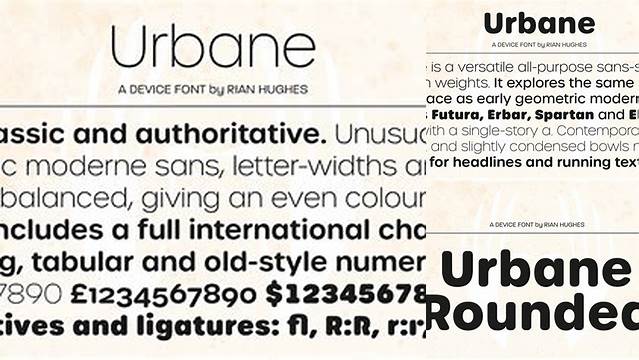
Urbane Rounded: A Modern Font Guide For Designers
Urbane Rounded is more than just a font; it's a design statement. If you're like me, always on the lookout for that perfect typeface to elevate your projects, then you've probably stumbled upon the beauty of Urbane Rounded. This font family, available through Adobe Fonts, has a unique charm that blends modernity with approachability. In this article, we're going to delve deep into what makes Urbane Rounded so special, how to use it effectively, and why it might just be the missing piece in your design puzzle.
What is Urbane Rounded?
Let's kick things off by understanding the core of what Urbane Rounded is all about. Urbane Rounded is a contemporary sans-serif typeface characterized by its clean lines and, of course, its rounded terminals. These rounded edges give the font a softer, more friendly feel compared to traditional sharp-edged sans-serifs. It's a versatile font family, meaning it often includes a variety of weights and styles, from thin and light to bold and heavy, offering designers a wide range of options for different applications. The beauty of Urbane Rounded lies in its ability to convey both professionalism and warmth. Think of it as the design equivalent of a firm handshake with a friendly smile. This makes it ideal for projects where you want to appear modern and trustworthy, but also approachable and human.
When we talk about its history, Urbane Rounded is a relatively recent addition to the vast world of typography. While the exact origins might vary depending on the specific foundry or designer, the philosophy behind rounded sans-serifs in general is rooted in a desire for a more humanistic and less rigid aesthetic. In a world increasingly dominated by digital interfaces, fonts like Urbane Rounded help to bridge the gap between technology and human connection. Now, let's get into why this font is such a game-changer in the design world. Its versatility is a key factor. Whether you're designing a sleek website, a friendly mobile app, or even print materials like brochures and posters, Urbane Rounded can adapt to the task. Its clean lines ensure readability across various sizes and resolutions, which is crucial in today's multi-device world. The rounded terminals, as we've mentioned, add a touch of softness that can make your designs feel more inviting. In branding, this can be incredibly powerful. Imagine using Urbane Rounded for a tech startup that wants to convey innovation but also build trust with its users. The font's gentle curves can help create a sense of approachability, making the brand feel more relatable. But it's not just for tech; Urbane Rounded works well across a wide range of industries, from healthcare to education to creative services. Its neutrality allows it to blend seamlessly with different visual styles and brand personalities. When you compare it to other fonts, Urbane Rounded carves out a unique space. Traditional sans-serifs like Helvetica or Arial, while classic and widely used, can sometimes feel a bit cold or corporate. On the other hand, more decorative or script fonts might be too informal for certain applications. Urbane Rounded strikes a perfect balance, offering a modern and clean look with a touch of warmth. Think of it as the Goldilocks of fonts – not too harsh, not too soft, just right.
Key Characteristics of Urbane Rounded
Alright, let's break down the specific traits that make Urbane Rounded stand out from the crowd. We've already touched on the rounded terminals, but there's so much more to this font's personality. Think of these characteristics as the different ingredients in a recipe – each one contributes to the final flavor. One of the primary characteristics is its legibility. Urbane Rounded is designed with clarity in mind, ensuring that the letterforms are easily distinguishable from one another. This is super important, especially when you're dealing with body text or smaller font sizes. Nobody wants to squint and struggle to read your message, right? The clean, uncluttered design of Urbane Rounded helps prevent eye strain and makes for a more pleasant reading experience. This legibility is achieved through careful attention to details like the x-height (the height of the lowercase letters), the spacing between letters, and the overall proportions of the characters. A well-designed typeface like Urbane Rounded will have consistent letterforms that work together harmoniously. Another key characteristic is its modern aesthetic. Urbane Rounded feels fresh and contemporary, making it a great choice for projects that need to look current and up-to-date. It avoids the dated feel that some older fonts can have, while still maintaining a sense of timelessness. This modern vibe is achieved through its geometric construction and the simplicity of its letterforms. There aren't any unnecessary frills or decorations; instead, the focus is on clean lines and a streamlined appearance. The rounded terminals, of course, play a big role in this modern feel. They soften the edges and give the font a more approachable look, which is a departure from the harsher, more angular sans-serifs of the past. But it's not just about being modern; Urbane Rounded also has a sense of approachability. The rounded edges create a friendly and inviting feeling, making the font feel less formal and more human. This is a crucial factor in branding and communication, where you want to connect with your audience on an emotional level. A font that feels approachable can help build trust and create a positive impression. Think about how different fonts make you feel. A sharp, angular font might convey power and authority, while a script font might feel elegant and sophisticated. Urbane Rounded, with its gentle curves, strikes a balance between professionalism and warmth. It's like a friendly handshake – confident but not intimidating. Beyond these core characteristics, Urbane Rounded also boasts versatility. As we mentioned earlier, it comes in a variety of weights and styles, giving you plenty of options to play with. You can use a light weight for headings to create a delicate and airy feel, or a bold weight for emphasis and impact. The different styles within the family – such as italic or condensed versions – further expand your creative possibilities. This versatility makes Urbane Rounded a workhorse font that you can use across a wide range of projects. Whether you're designing a website, a logo, or a print brochure, you'll find a style of Urbane Rounded that fits the bill. And finally, let's not forget its neutrality. Urbane Rounded is a relatively neutral font, meaning it doesn't have a strong personality that will clash with other design elements. This makes it easy to pair with other fonts and use in a variety of contexts. While some fonts demand attention and can overwhelm a design, Urbane Rounded tends to blend in seamlessly. This neutrality is a strength, as it allows the font to support your message without overpowering it. It's like a reliable supporting actor in a movie – it might not be the star, but it plays a crucial role in the overall performance.
How to Use Urbane Rounded Effectively
Okay, so we've established that Urbane Rounded is a fantastic font with a lot to offer. But how do you actually use it effectively in your designs? Let's dive into some practical tips and tricks to make the most of this versatile typeface. Think of these as your guidelines for creating a harmonious and visually appealing design. First off, consider the context of your project. What are you trying to communicate? What kind of message do you want to send? Urbane Rounded's blend of modernity and approachability makes it suitable for a wide range of applications, but it's still important to think about whether it's the right fit for your specific needs. For example, if you're designing a website for a tech startup, Urbane Rounded can be a great choice. Its clean lines and rounded edges convey innovation and friendliness, which can help build trust with your users. On the other hand, if you're designing a logo for a high-end luxury brand, you might opt for a more elegant and sophisticated typeface. The key is to align your font choice with the overall brand personality and message. Next, think about hierarchy. How can you use Urbane Rounded to guide your audience through your design? Hierarchy is all about creating visual cues that tell people where to look first, second, and so on. You can achieve this by using different weights and sizes of Urbane Rounded to create contrast and emphasis. For example, you might use a bold weight for your headings to make them stand out, and a lighter weight for your body text to ensure readability. Size is another important factor. Larger text will naturally attract more attention, so use it strategically to highlight key information. Spacing also plays a role – increasing the line height or letter spacing can make text feel more open and inviting. Remember, good typography is all about making your message clear and easy to understand. Another crucial aspect is pairing. While Urbane Rounded is a strong font on its own, it often works best when paired with another typeface. The right font pairing can create visual interest and enhance the overall aesthetic of your design. When choosing a pairing font, look for something that complements Urbane Rounded without competing with it. A good rule of thumb is to pair a sans-serif font (like Urbane Rounded) with a serif font, or vice versa. This creates contrast and prevents your design from feeling monotonous. For example, you might pair Urbane Rounded with a classic serif font like Garamond or Times New Roman for a sophisticated and balanced look. Or, you could pair it with another sans-serif font with a different personality, such as a more geometric or condensed typeface. Experiment with different combinations to see what works best for your project. Don't be afraid to try unexpected pairings – sometimes the most surprising combinations are the most effective. Consistency is key in design, so make sure you're using Urbane Rounded consistently throughout your project. This means sticking to a limited number of weights and styles, and using them in a predictable way. For example, you might choose to use a bold weight for all of your headings and a regular weight for your body text. This creates a sense of visual unity and makes your design feel more polished and professional. Inconsistency can be jarring and confusing for your audience, so it's important to establish a clear visual system and stick to it. Finally, pay attention to the details. Typography is all about the subtle nuances that can make a big difference in the overall impact of your design. Things like kerning (the spacing between individual letters), leading (the spacing between lines of text), and tracking (the overall spacing between letters) can all affect readability and visual appeal. Take the time to fine-tune these details to ensure that your text looks its best. Even small adjustments can have a significant impact on the final result. Remember, typography is an art and a science. It requires both technical skill and creative vision. By mastering the fundamentals and paying attention to the details, you can use Urbane Rounded to create beautiful and effective designs.
Examples of Urbane Rounded in Action
To truly appreciate the versatility of Urbane Rounded, let's take a look at some real-world examples of how it's being used in different design contexts. Seeing the font in action can spark your own creativity and help you visualize how it might work in your projects. Think of these examples as a source of inspiration and a guide to the possibilities. One common application is in website design. Urbane Rounded's clean lines and excellent readability make it a popular choice for both headings and body text on websites. Its modern aesthetic helps create a contemporary look and feel, while its rounded edges add a touch of approachability. Many tech companies and startups use Urbane Rounded to convey a sense of innovation and trustworthiness. For example, you might see it used on a company's homepage to introduce their brand and values, or in blog posts and articles to ensure a pleasant reading experience. The font's versatility allows it to adapt to different website layouts and design styles, making it a reliable choice for web designers. In branding, Urbane Rounded can be a powerful tool for creating a consistent and memorable visual identity. Its neutrality allows it to blend seamlessly with different brand colors and imagery, while its rounded terminals help create a friendly and approachable brand personality. You might see it used in logos, marketing materials, and social media graphics. For instance, a healthcare company might use Urbane Rounded to convey a sense of care and compassion, while a creative agency might use it to project a modern and innovative image. The key is to use the font consistently across all brand touchpoints to create a cohesive and recognizable brand identity. Print materials are another area where Urbane Rounded shines. Its legibility and clarity make it an excellent choice for brochures, posters, flyers, and other printed documents. Whether you're designing a corporate brochure or a promotional poster, Urbane Rounded can help you communicate your message effectively. Its versatility allows it to work well in both large and small sizes, making it suitable for headings, body text, and captions. The font's modern aesthetic ensures that your printed materials look current and professional. Mobile app design is yet another context where Urbane Rounded excels. With the increasing popularity of mobile devices, it's crucial to choose fonts that are easy to read on small screens. Urbane Rounded's clean letterforms and generous spacing make it an ideal choice for mobile apps. You might see it used in navigation menus, buttons, and other UI elements. Its rounded edges can help create a user-friendly and intuitive interface. Many app designers use Urbane Rounded to ensure a seamless and enjoyable user experience. Beyond these specific examples, Urbane Rounded can also be used in a variety of other design applications, such as presentations, infographics, and even video graphics. Its versatility and adaptability make it a valuable asset for any designer. The key is to experiment and see how it works best in your particular context. Don't be afraid to try different weights, styles, and pairings to create a unique and effective design. By studying how Urbane Rounded is being used in the real world, you can gain inspiration and develop your own creative approach. Remember, good design is all about making informed choices and using your tools effectively. With Urbane Rounded in your font arsenal, you'll be well-equipped to tackle a wide range of design challenges.
Conclusion: Why Urbane Rounded is a Great Choice
Alright guys, we've reached the end of our deep dive into the world of Urbane Rounded. By now, you should have a solid understanding of what makes this font so special and why it's a fantastic choice for a wide range of design projects. Let's recap some of the key reasons why Urbane Rounded deserves a spot in your font arsenal. Think of this as your final checklist before you go off and start creating amazing things. First and foremost, Urbane Rounded is incredibly versatile. We've talked about this a lot, but it's worth reiterating. This font can adapt to so many different contexts, from websites and branding to print materials and mobile apps. Whether you're designing for a tech startup, a healthcare provider, or a creative agency, Urbane Rounded can fit the bill. Its neutrality allows it to blend seamlessly with different visual styles, while its rounded edges add a touch of warmth and approachability. This versatility makes it a true workhorse font that you can rely on for a variety of projects. Its modern aesthetic is another major selling point. Urbane Rounded feels fresh and contemporary, making it a great choice for designs that need to look current and up-to-date. It avoids the dated feel that some older fonts can have, while still maintaining a sense of timelessness. This modern vibe is achieved through its clean lines, geometric construction, and, of course, its rounded terminals. The font's up-to-date feel can help your designs stand out and make a strong impression. The legibility of Urbane Rounded is also a crucial factor. This font is designed with clarity in mind, ensuring that the letterforms are easily distinguishable from one another. This is especially important for body text and smaller font sizes, where readability is paramount. The clean, uncluttered design of Urbane Rounded helps prevent eye strain and makes for a more pleasant reading experience. A font that's easy to read is a font that people will actually enjoy using. The approachability factor is what truly sets Urbane Rounded apart. The rounded edges give the font a friendly and inviting feel, making it less formal and more human. This is a powerful tool for branding and communication, where you want to connect with your audience on an emotional level. A font that feels approachable can help build trust and create a positive impression. In a world where digital interactions are becoming increasingly common, a font like Urbane Rounded can help bridge the gap between technology and human connection. And finally, let's not forget the ease of access. With Adobe Fonts, Urbane Rounded is readily available to millions of designers. If you're an Adobe Creative Cloud subscriber, you can start using it right away. This makes it a convenient and cost-effective choice for many designers. Even if you're not an Adobe user, you can still purchase the font from a foundry or font marketplace. In conclusion, Urbane Rounded is a fantastic typeface that offers a winning combination of versatility, modernity, legibility, approachability, and accessibility. Whether you're a seasoned designer or just starting out, this font is a valuable asset to have in your toolkit. So go ahead, give it a try, and see how it can elevate your designs. You won't be disappointed!